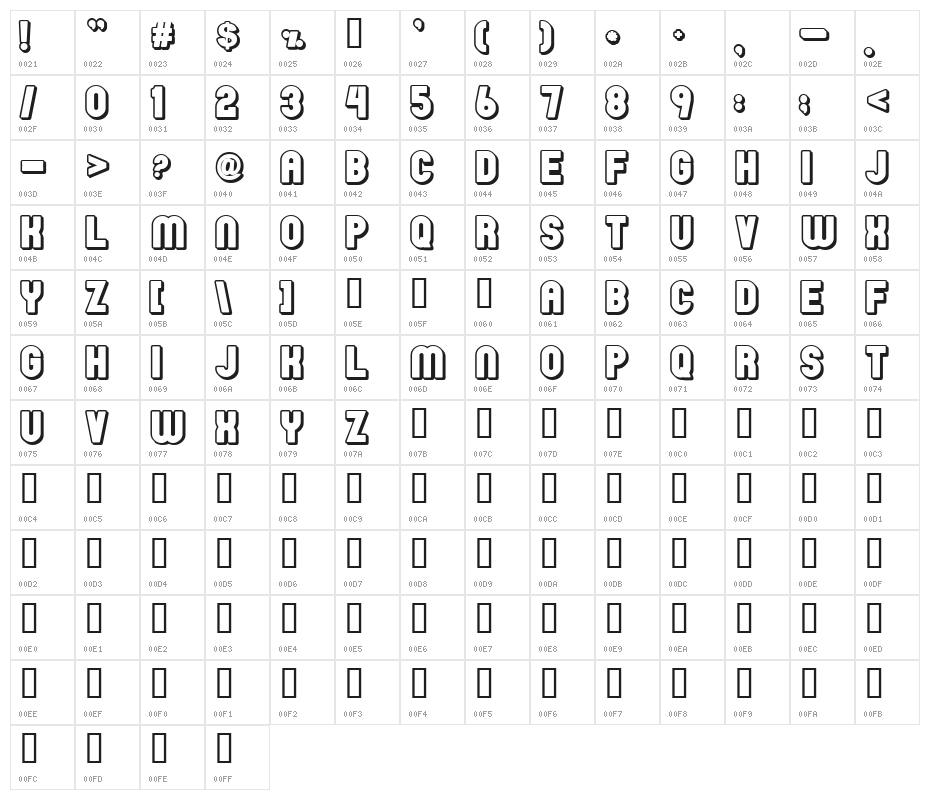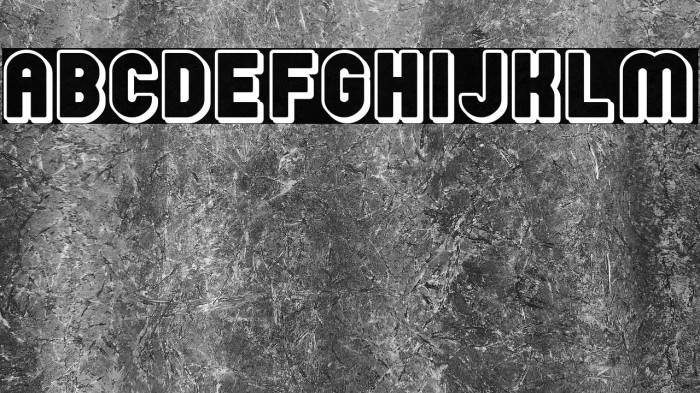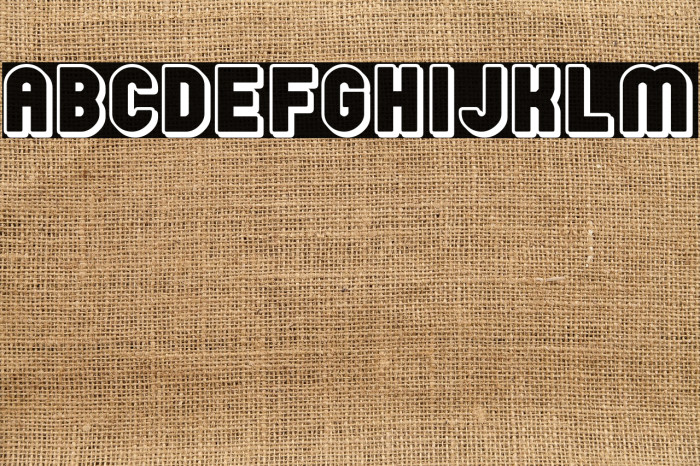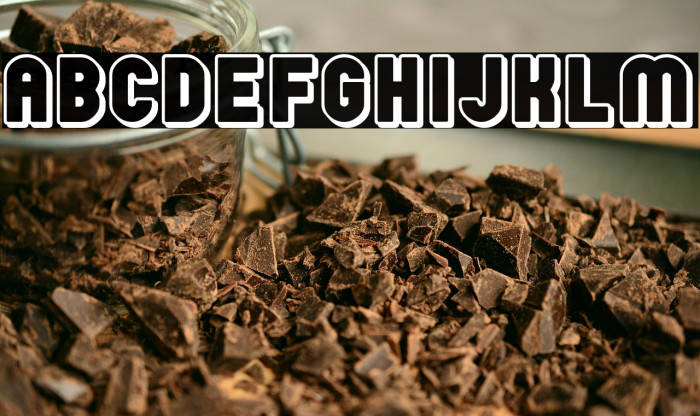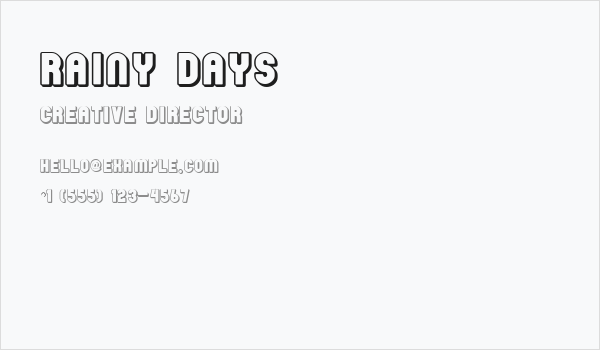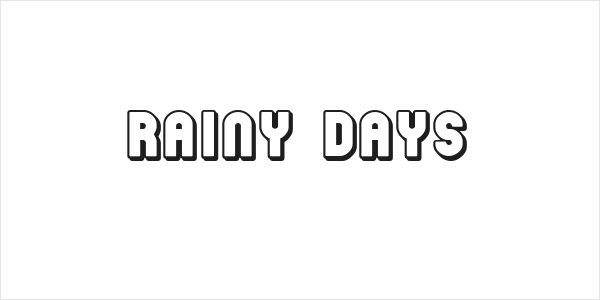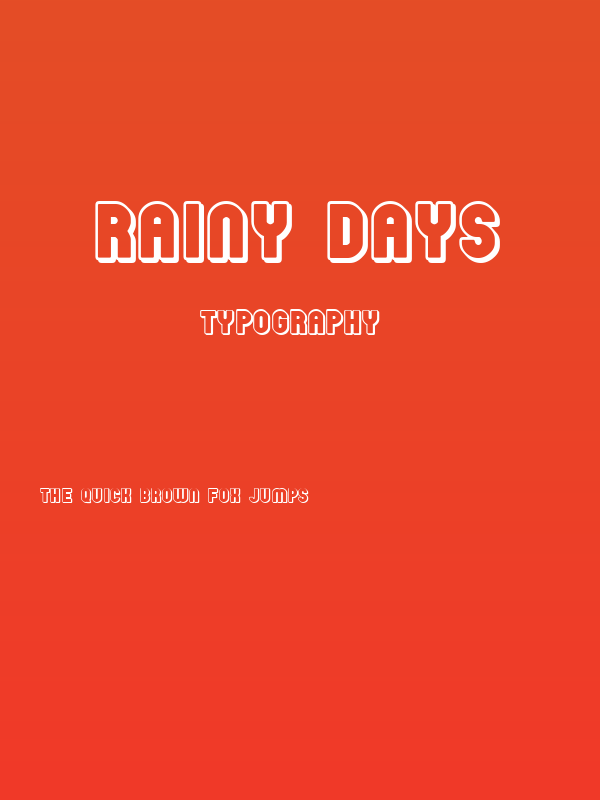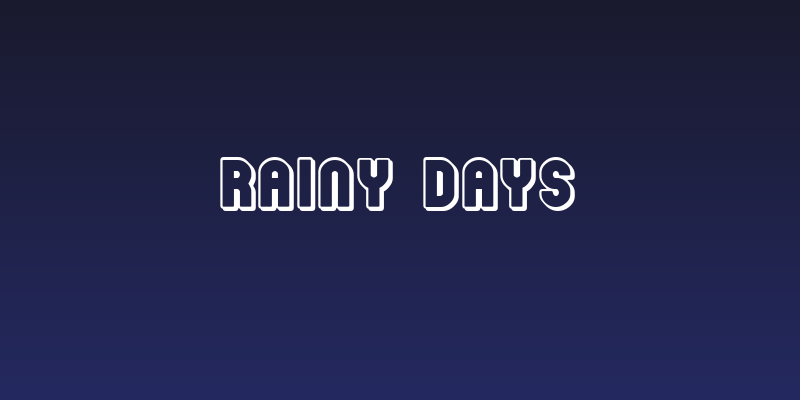
Rainy Days Font
Rainy Days Description
This font features bold, rounded characters with a distinct outline, giving it a playful and eye-catching appearance. The uppercase and lowercase letters maintain a consistent style, with a uniform thickness that enhances readability. The numbers and special characters are designed to match the boldness and rounded edges of the alphabet, ensuring a cohesive look across all glyphs. The font's style is reminiscent of retro or comic book aesthetics, making it suitable for projects that require a fun and engaging visual impact.
| Overall Style | Retro, Playful |
| Proposed Projects | Ideal for comic books, children's books, posters, and playful branding materials. |